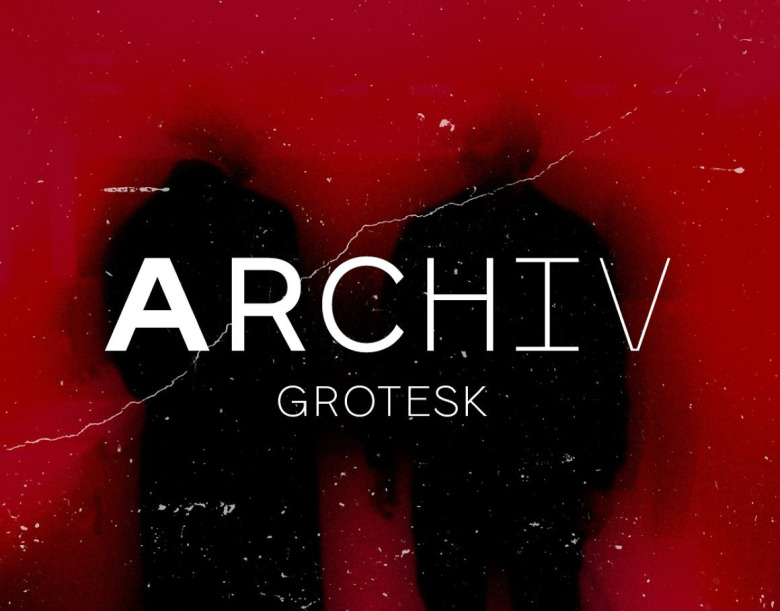
Archiv Grotesk Font
Archiv Grotesk is a grotesk sans serif font, a Sans Serif type, it’s like a design from the Machine Age. Archiv Grotesk was designed and shared by clarksontomas. Inspired by various visits to the Stanley Kubrick archives, It’s a sans serif font family with 6 weights.
With support for Western-European languages and over 200 glyphs. A perfect typeface for any kind of web / print usage – body text, headlines, logotypes, branding, marketing graphics, corporate identities and more. Just see the demo images to get an idea about the typeface usage examples.